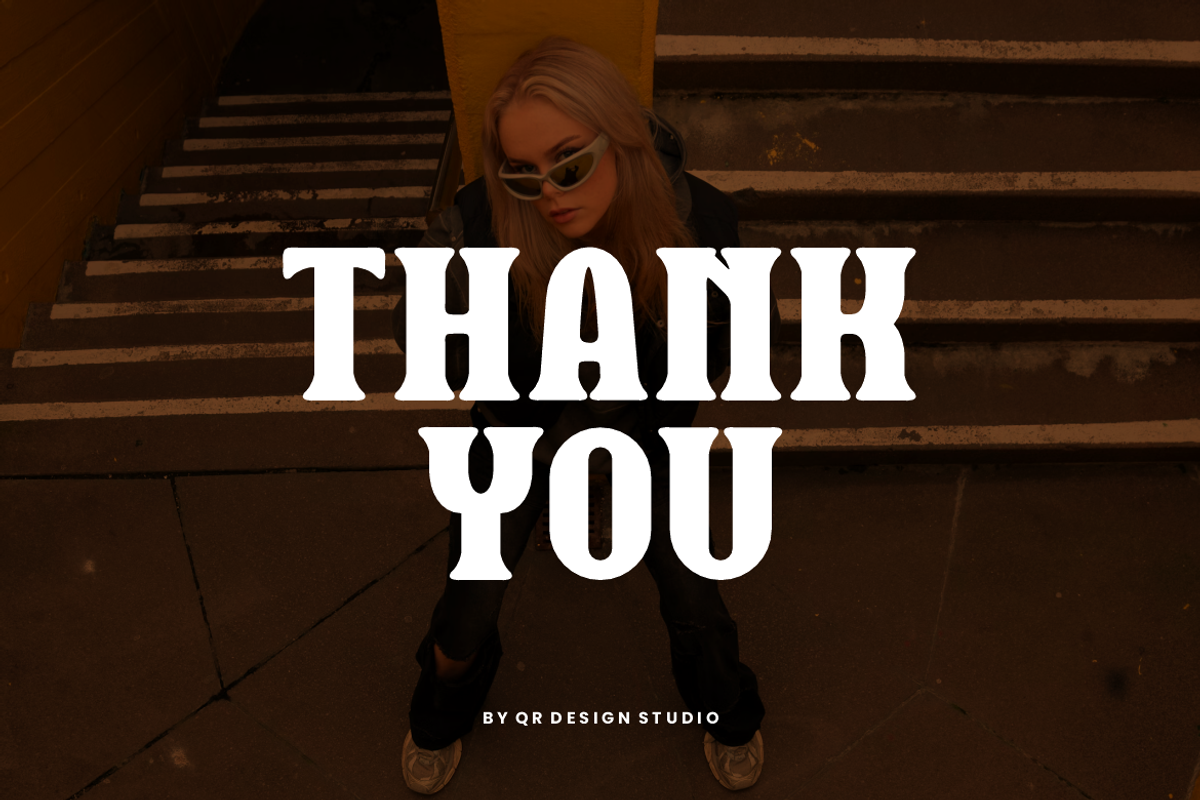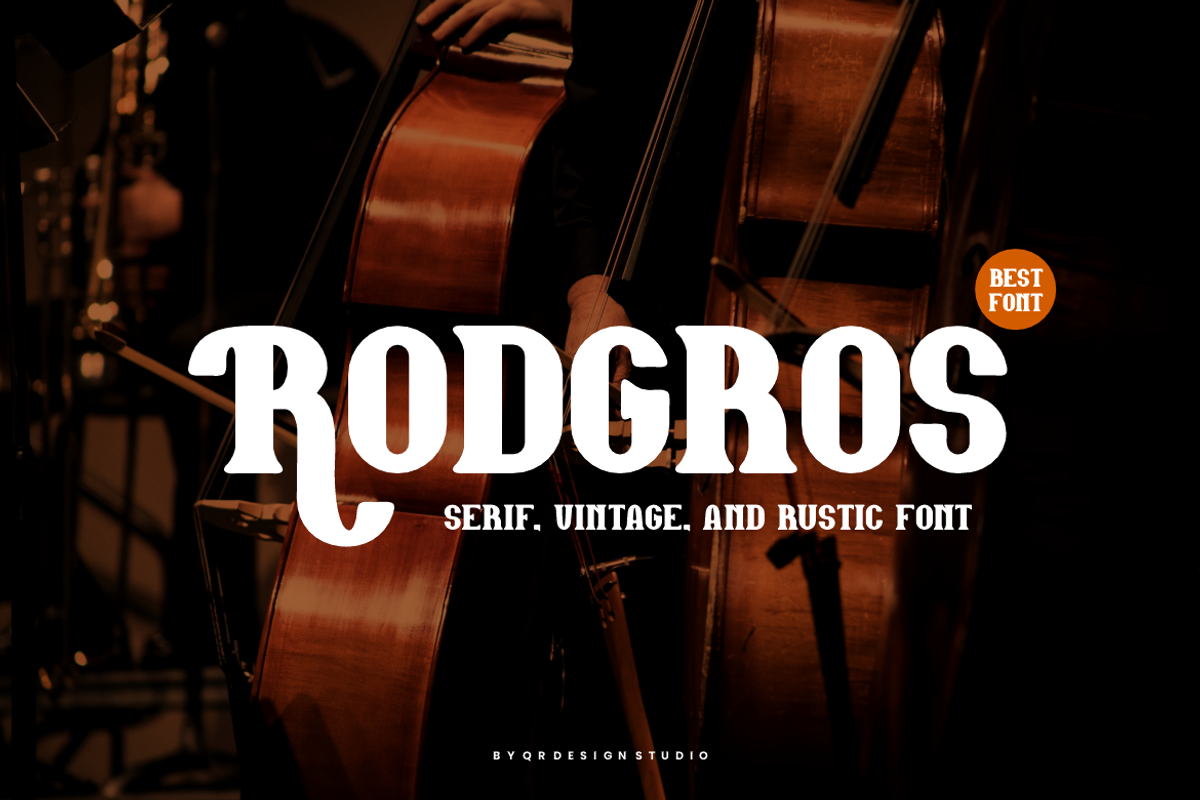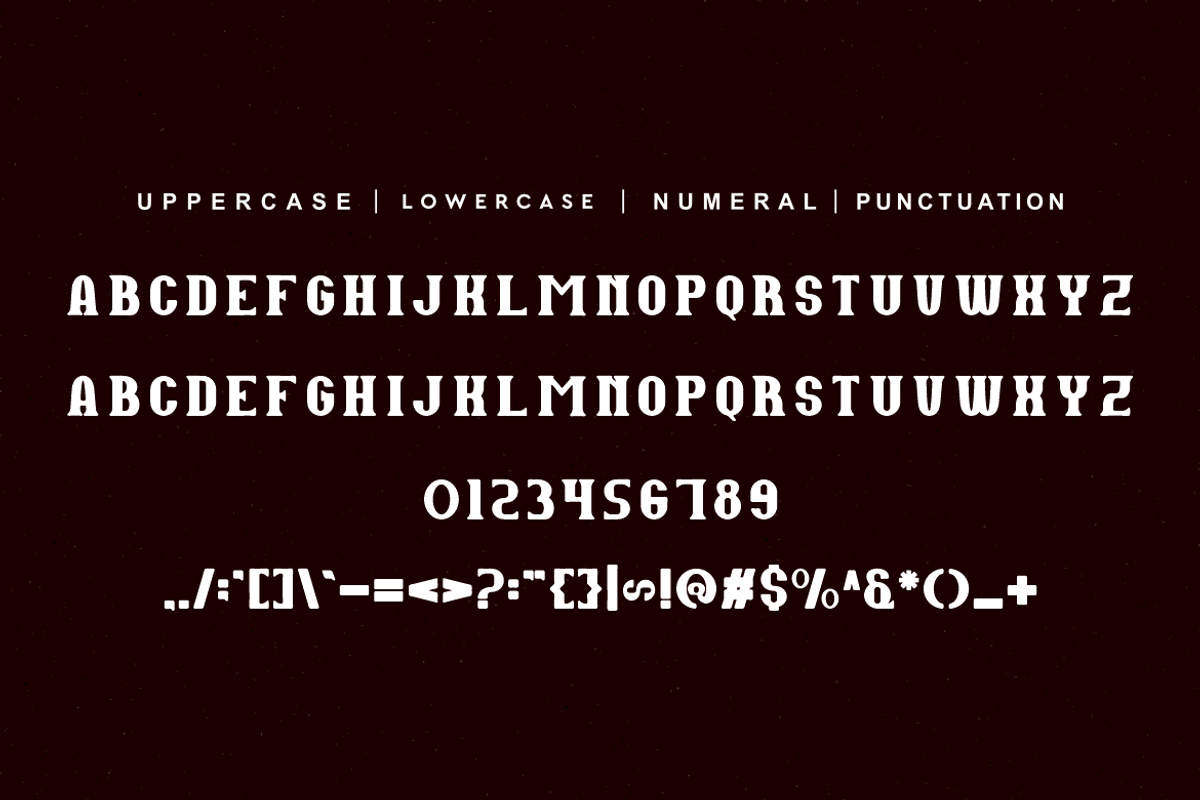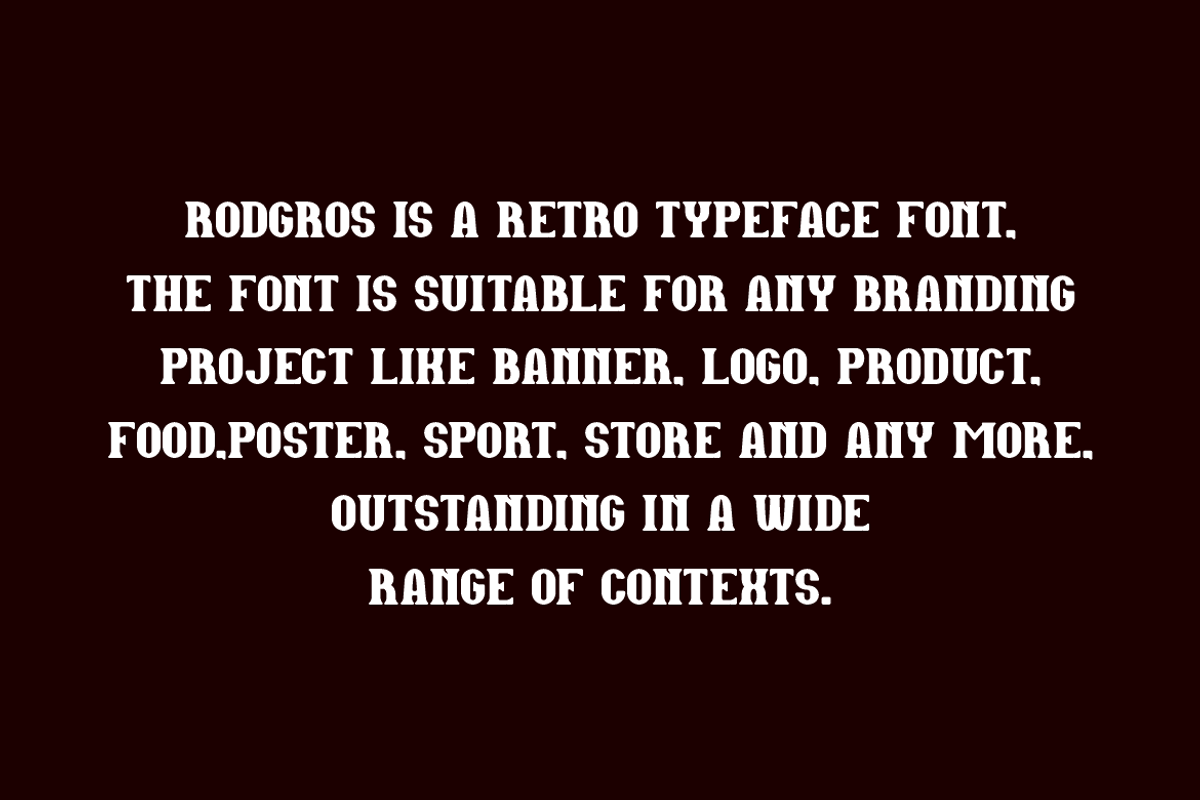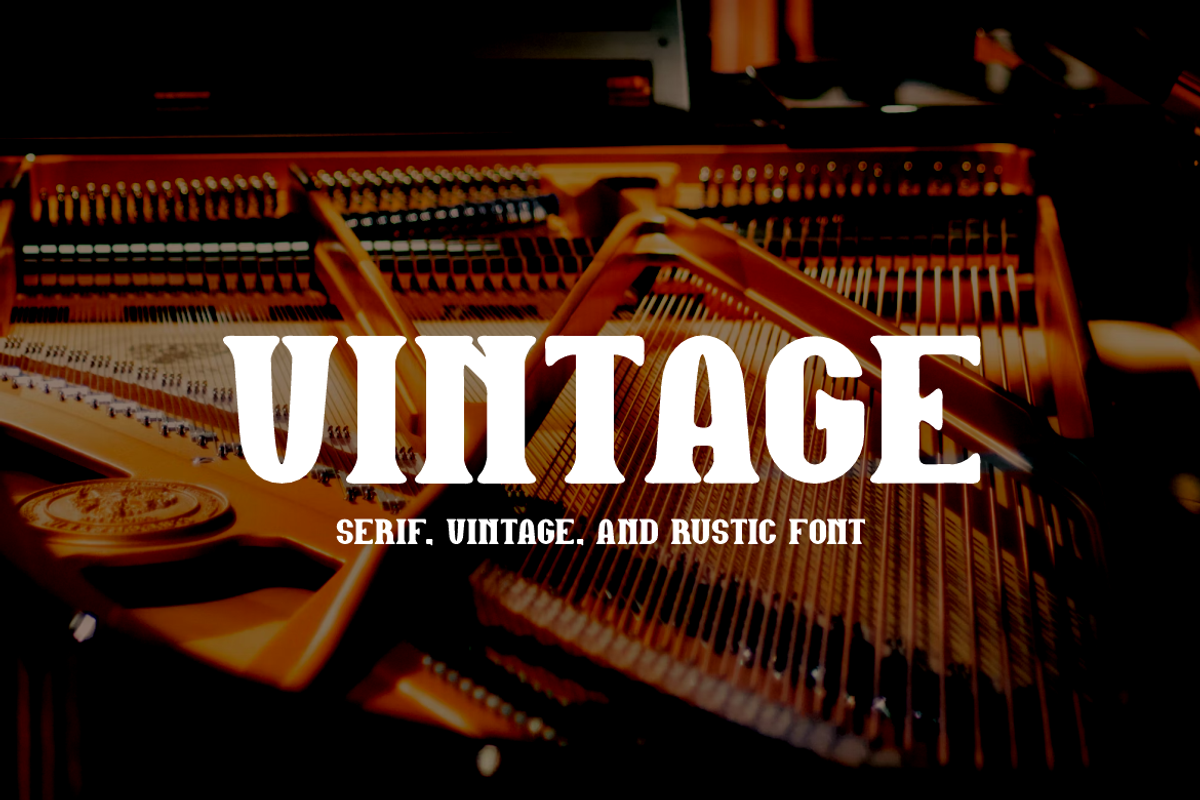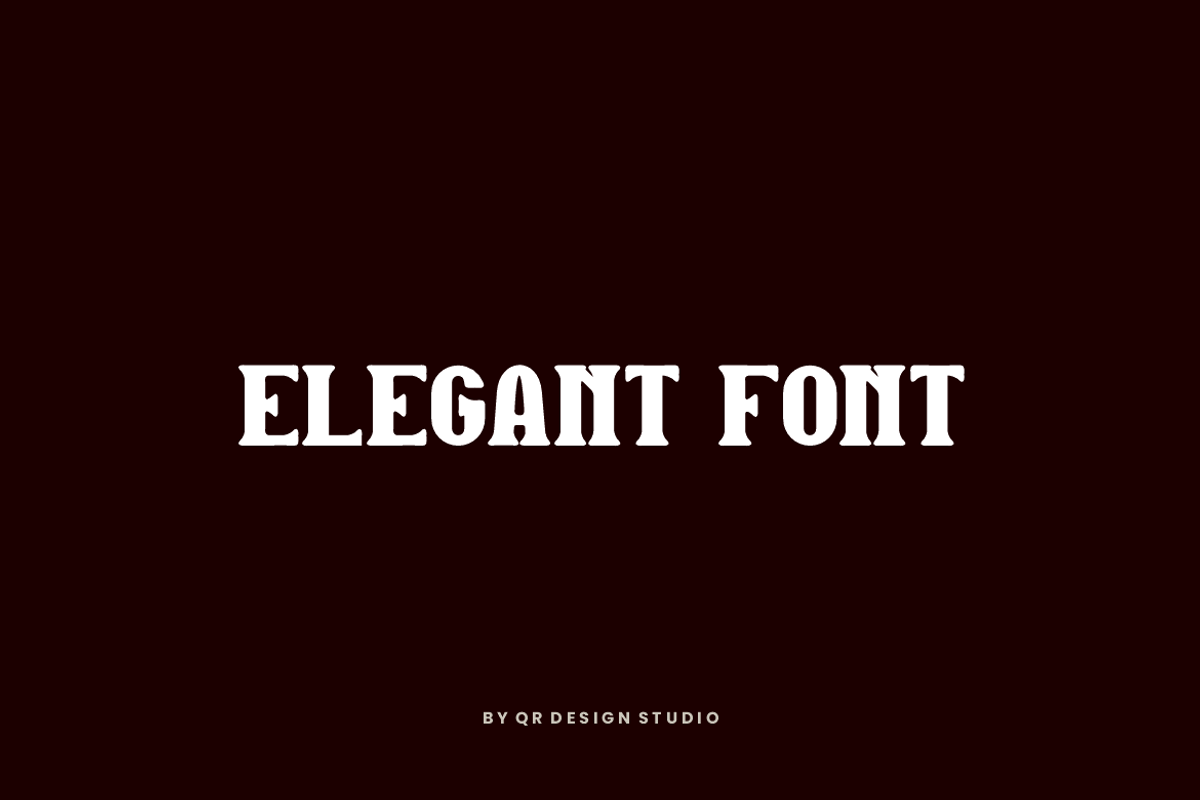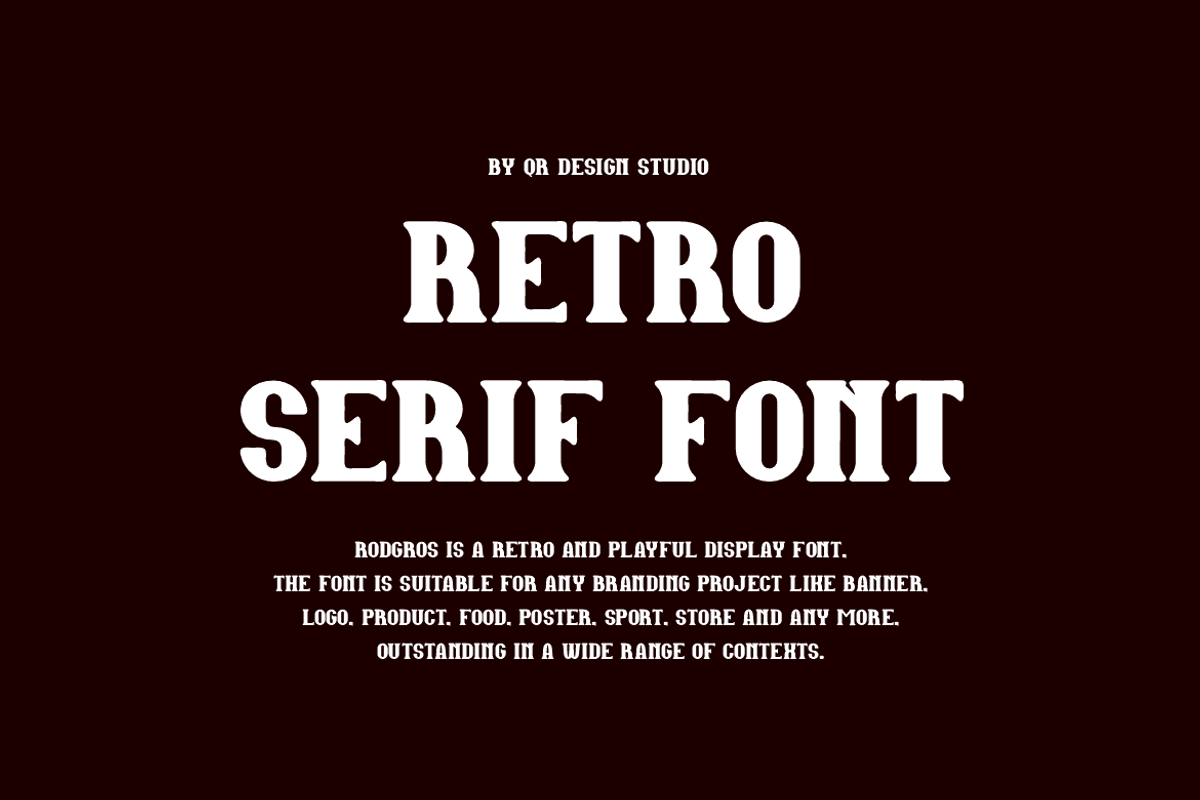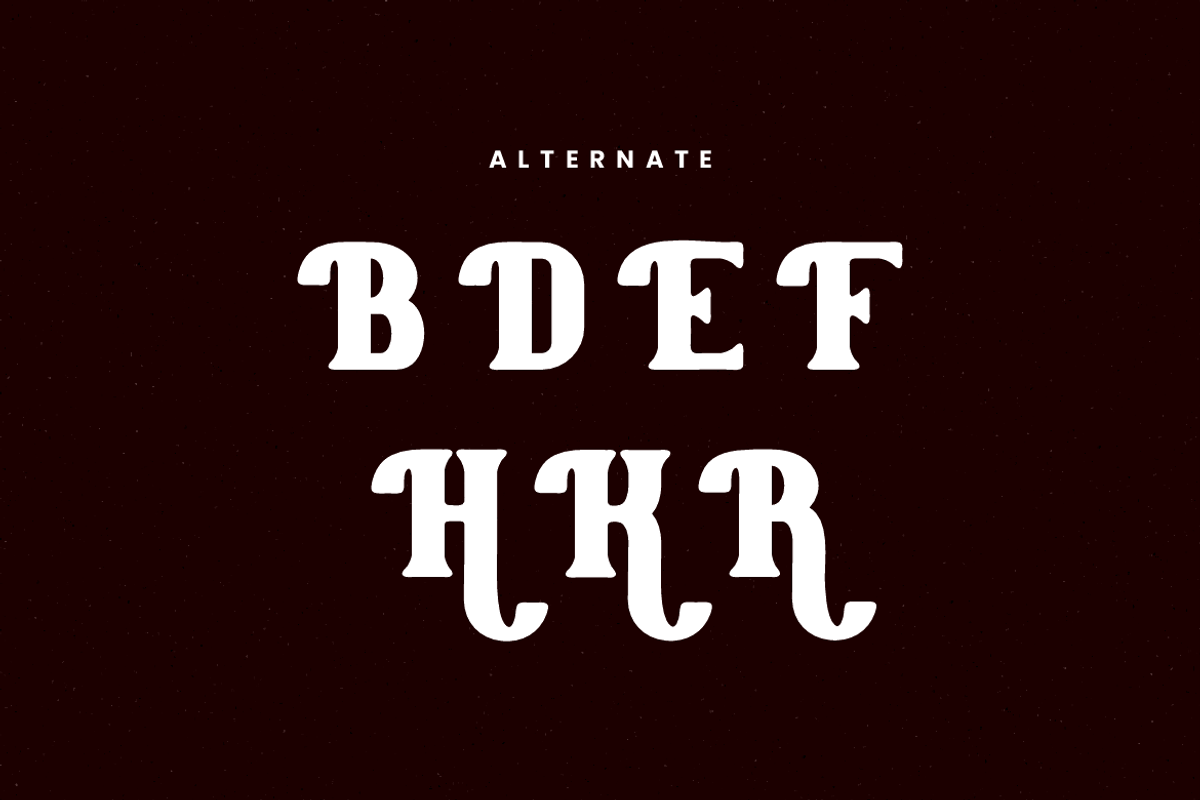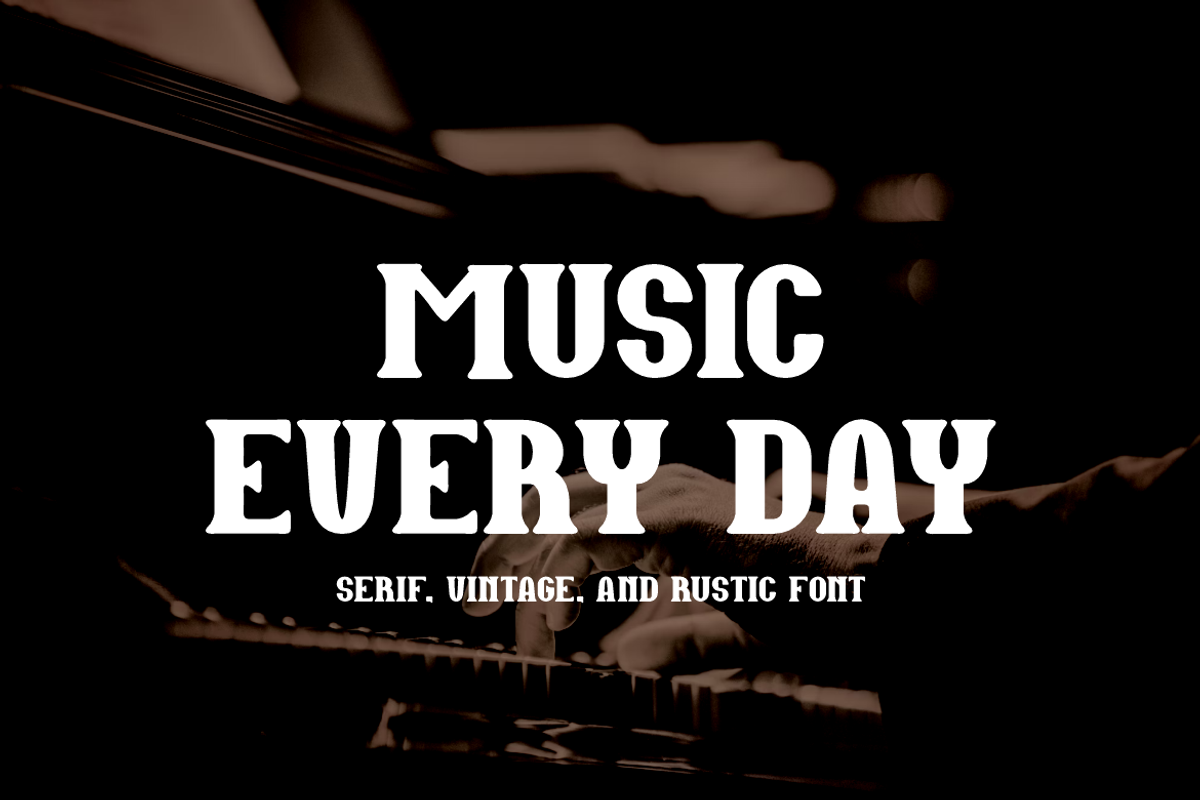
Rodgros - Rustic & Vintage Font
Rodgros Font is a serif and authentic display font. The font is suitable for any branding project like poster, logo, sport, and many more. Outstanding in a wide range of contexts.